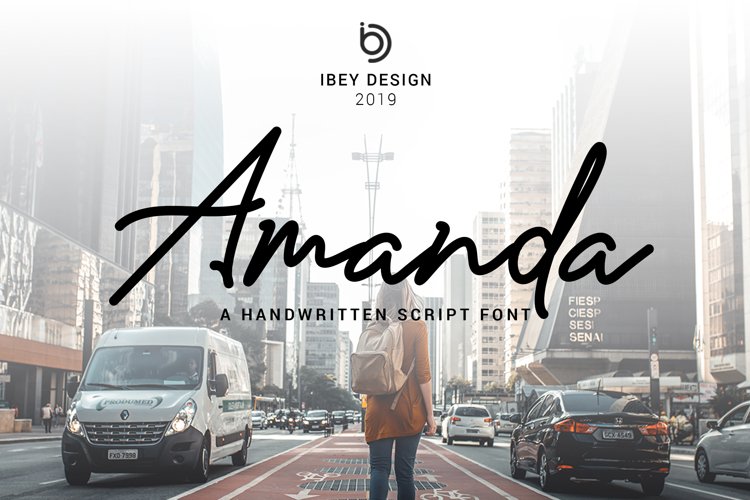
Amanda - Handwritten Script Font
Amanda
Amanda Handwritten Script Font is a unique and elegant handwritten font. It has a natural and stylish flow and was made with the intention to be used by Photographers as a watermark for their Photography Business, but can also be used for many other purposes. Everything from special branding & wedding invitations to advertising could benefit from this script font.